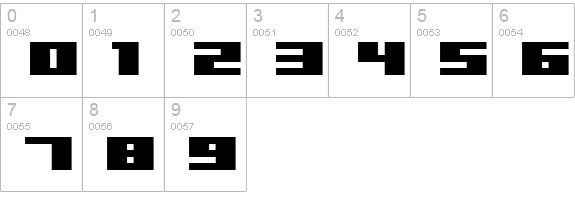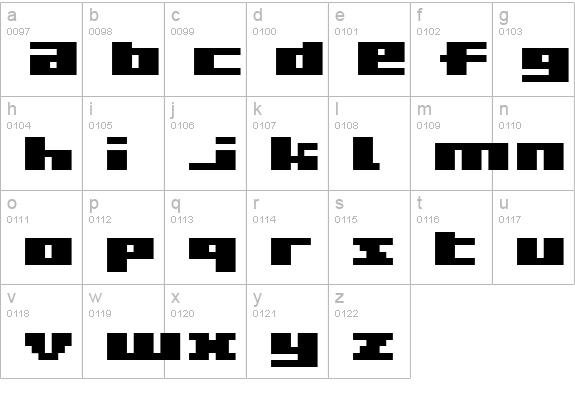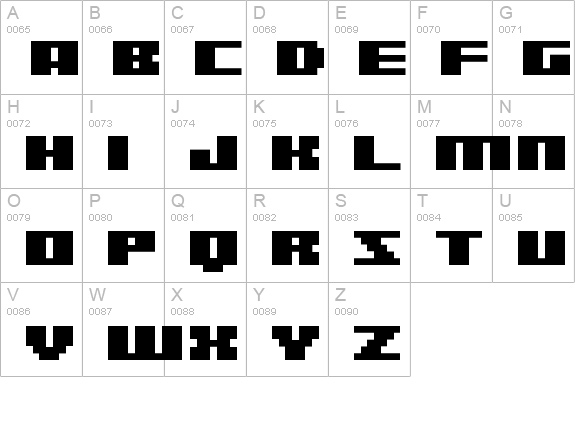
BM rizer A6 Font Details
The BM rizer A6 font is a striking and modern typeface that exudes elegance and sophistication. With its sleek lines and clean design, this font is perfect for a wide range of design projects, from branding to editorial layouts. The BM rizer A6 font is versatile and can be used in both digital and print applications, making it a valuable addition to any designer's toolkit. The best part? This stunning font is available for free download at FontsMarket.com. That's right, you can easily access and start using the BM rizer A6 font in your projects without any cost. Don't miss out on this opportunity to elevate your designs with this beautiful and contemporary font. Download the BM rizer A6 font today and unleash your creativity!